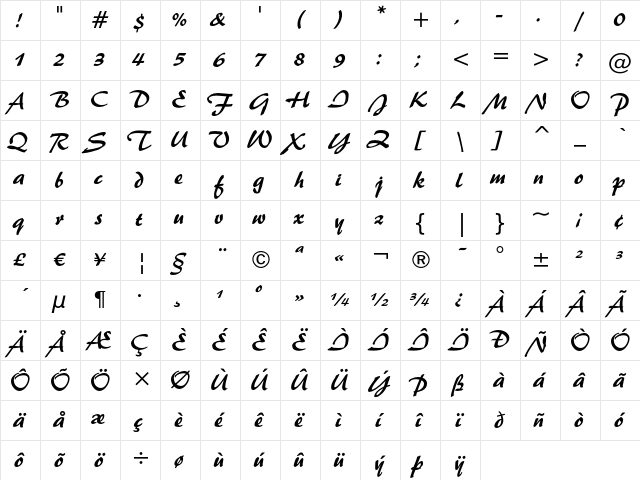
Brush 455 Regular
Design Context for Brush 455
Brush 455 flows with the natural rhythm of handwritten lettering, making it ideal for designs that call for warmth and personal expression.
Font Pairing: Combine Brush 455 with a simple geometric sans for maximum contrast - the tension between flowing curves and clean structure is a classic typographic pairing.
Pro Tip: Use Brush 455 for short runs of text - names, titles, or taglines. Extended body copy in script faces tires the eye quickly.